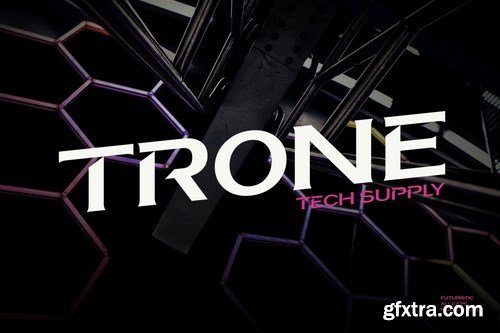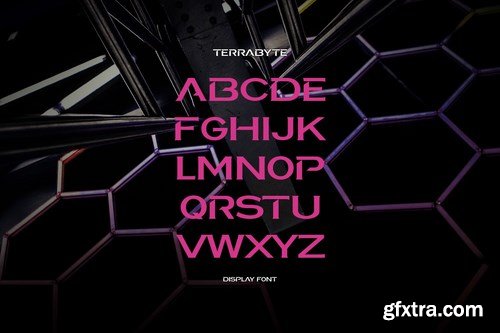
泰瑞特abytes字体
Terrabyte Font An stylish and futuristic all caps display font for your design. Feel strong and confident. best for Sports design, automotive, racing, or future technology concept design.